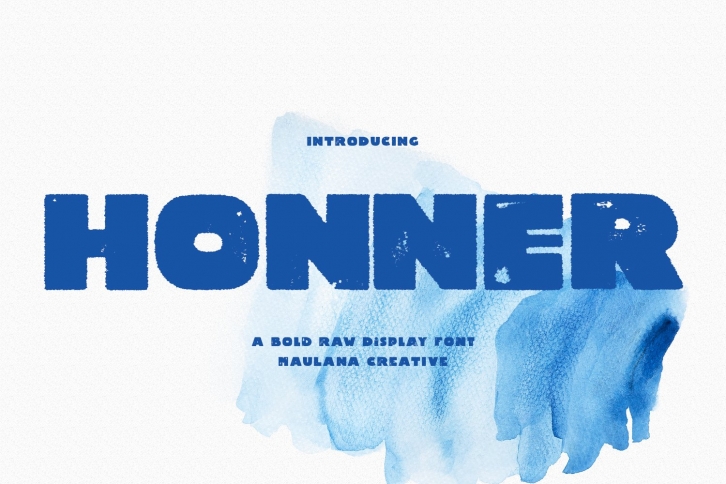
Honner Sans Serif Display is a gorgeous font that was realeased on October 31, 2022. The font can be used in many style contexts and design environments. Perfect for invitations, magazines, websites, logos, and more! It was designed by Maulana Creative and the file size is 11.26 MB. Thanks for checking out this font!